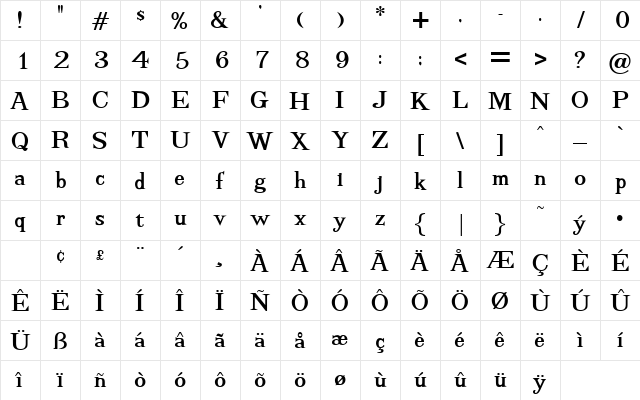
Adhesion Regular
Design Context for Adhesion Typeface
Adhesion is a composed and adaptable typeface that performs quietly and consistently across a wide range of design contexts.